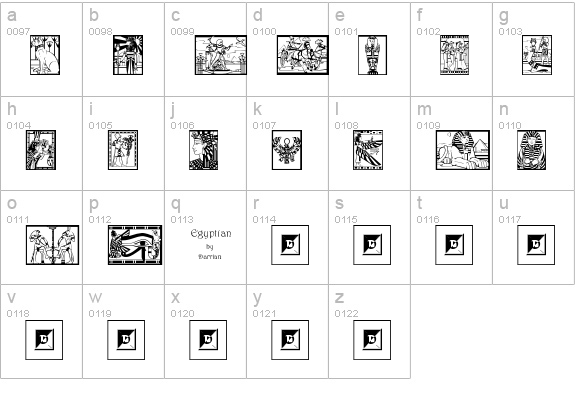
Introducing the exquisite Egyptian font, a timeless and elegant typeface inspired by the iconic hieroglyphic scripts of ancient Egypt. This stunning font features intricate details and bold strokes that evoke a sense of mystique and sophistication. Perfect for adding a touch of history and culture to your design projects, the Egyptian font is ideal for creating captivating headlines, logo designs, and more. Best of all, this remarkable font is available for free download at FontsMarket.com. Simply visit the website to get your hands on this unique typeface and elevate your designs with a touch of Egyptian charm. Don't miss out on the opportunity to enhance your creations with this beautiful and versatile font that pays homage to the rich heritage of Egypt. Download the Egyptian font today and unleash your creativity!